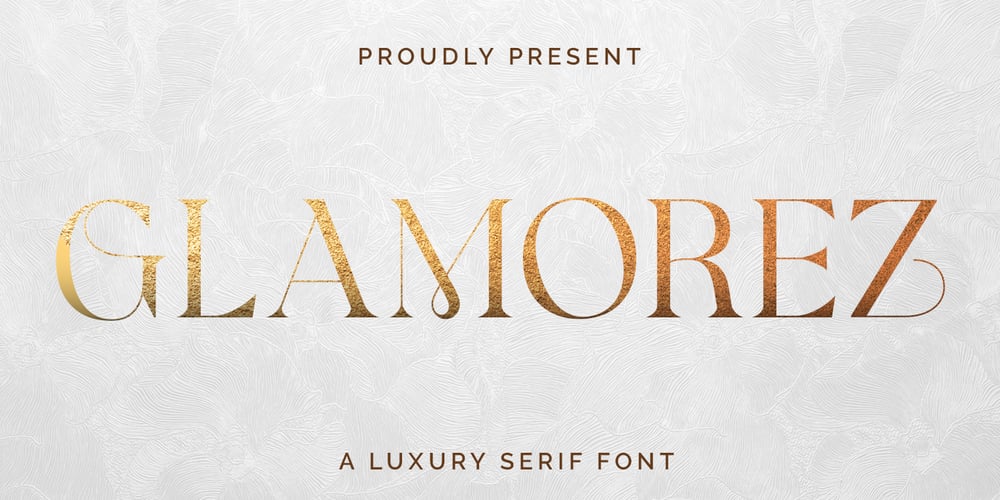
Glamorez Font Family was designed by Abdul Malik Wisnu and published by Almarkha Type. Glamorez contains 1 styles and family package options. Introducing Glamorez – Luxury Display Serif inspired by the famous minimalist logo perfect for the purposes of designing templates, brochures, videos, advertising branding, logos and more.